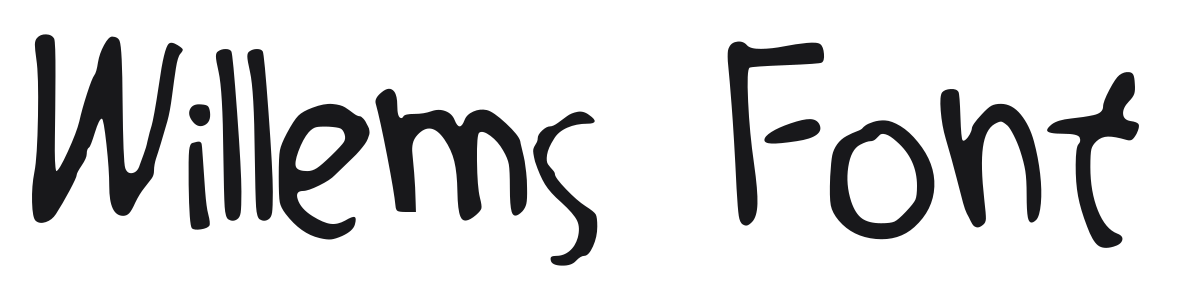
Willems Font
Willems Font has the easygoing looseness of someone jotting notes with a felt-tip marker, with uneven baselines and slightly wobbly letterforms that give it genuine handmade charm. There's a playful quirkiness to the shapes that keeps it from feeling generic, landing closer to real handwriting than most casual script fonts manage. Best for informal contexts like personal projects, greeting cards, or social posts where a relaxed, human touch matters.